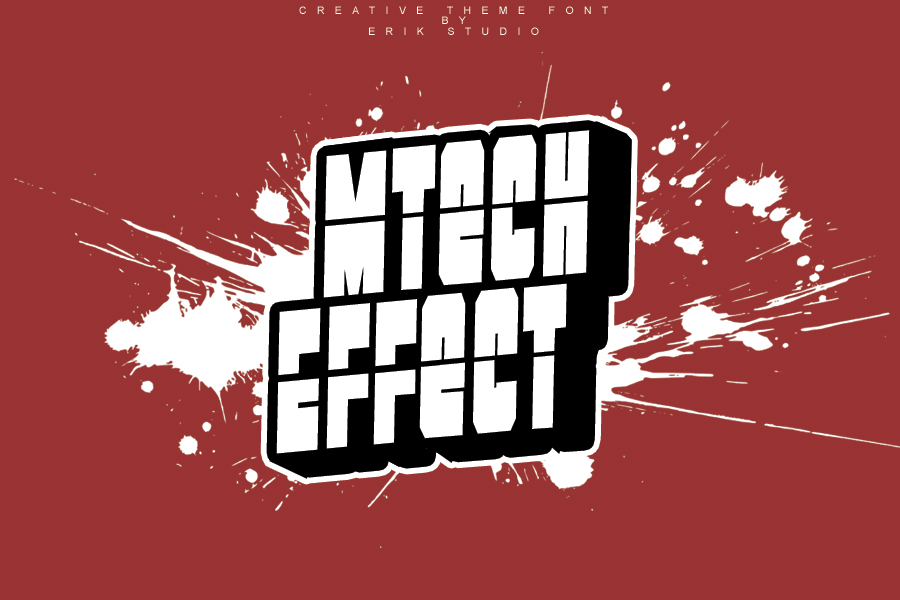
Bomb Display Font
This is a thick lettered, robotic and assertive display font. Sharp looking and cool, this font will truly inspire each of your works. Use this font for your creations and explore its endless possibilities.